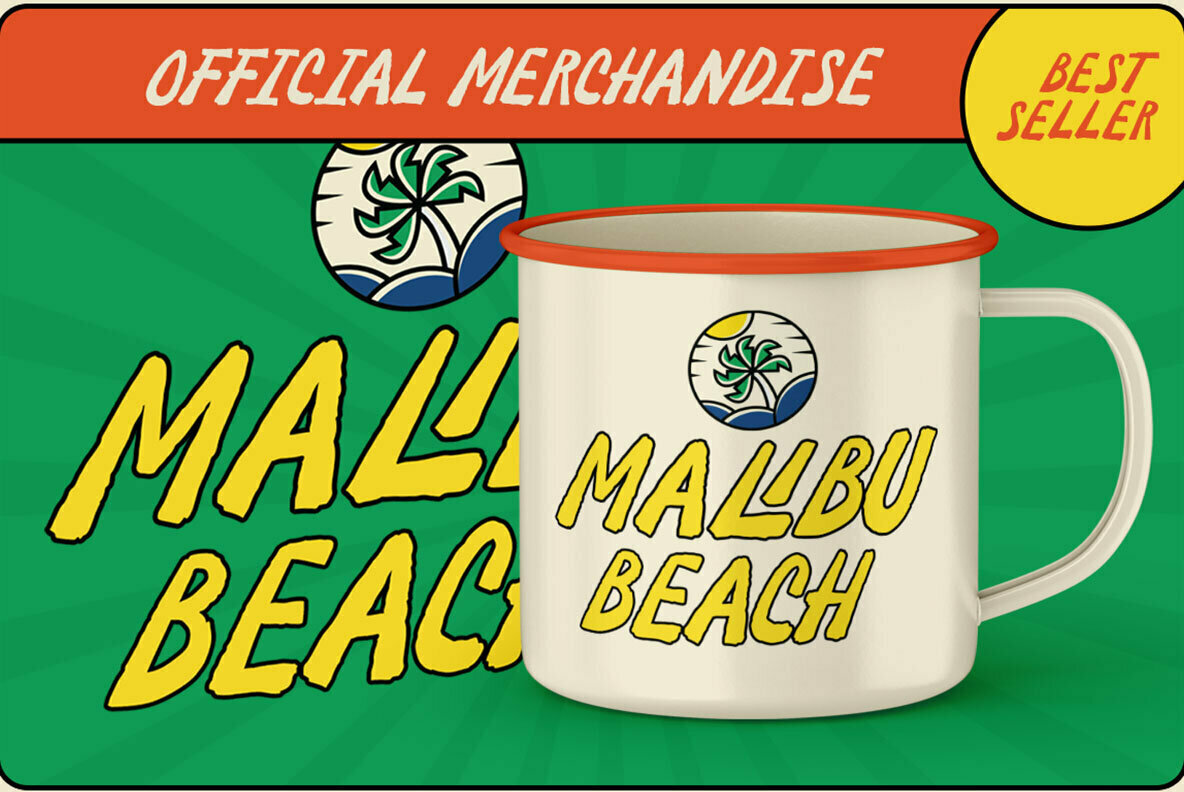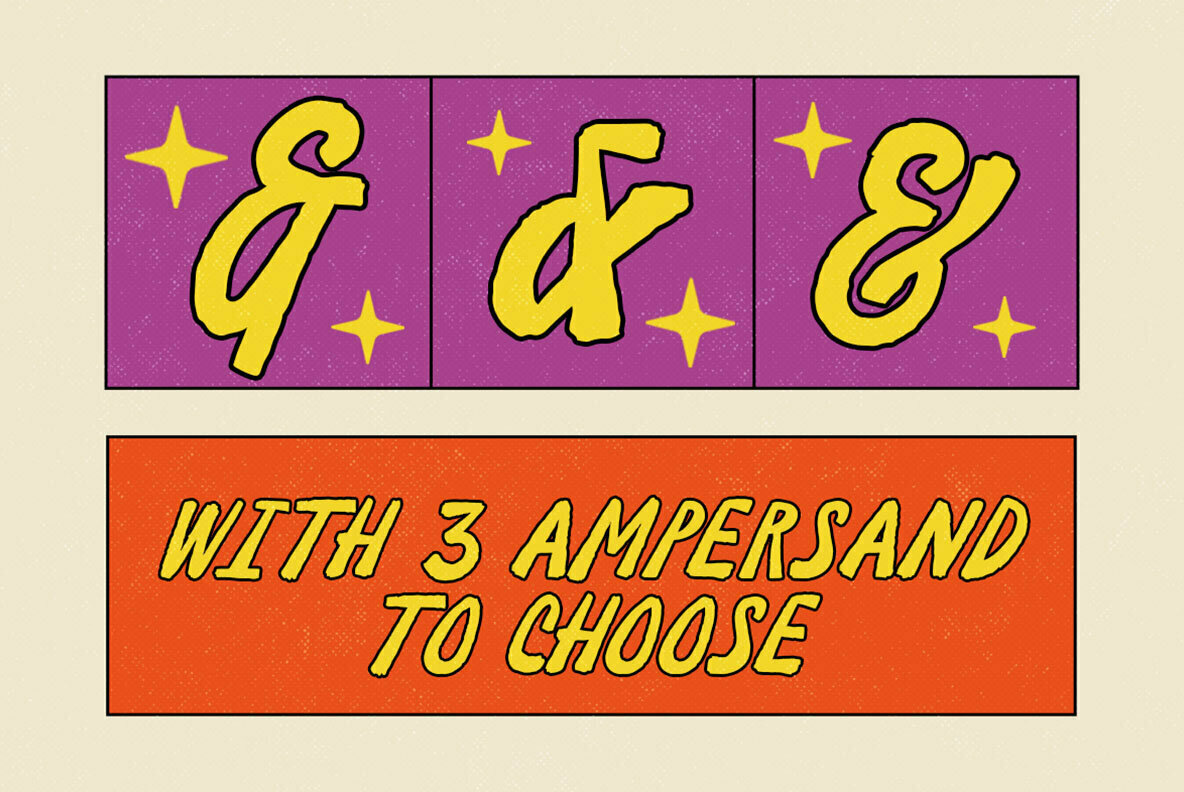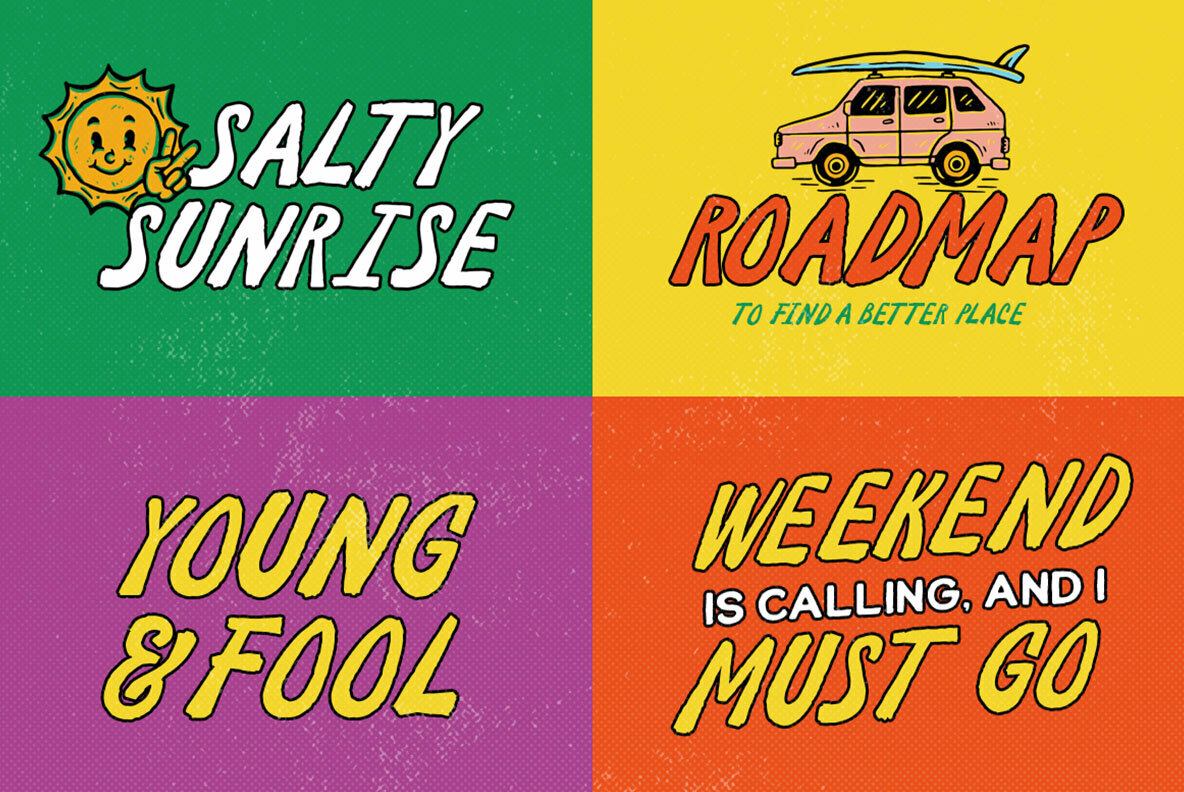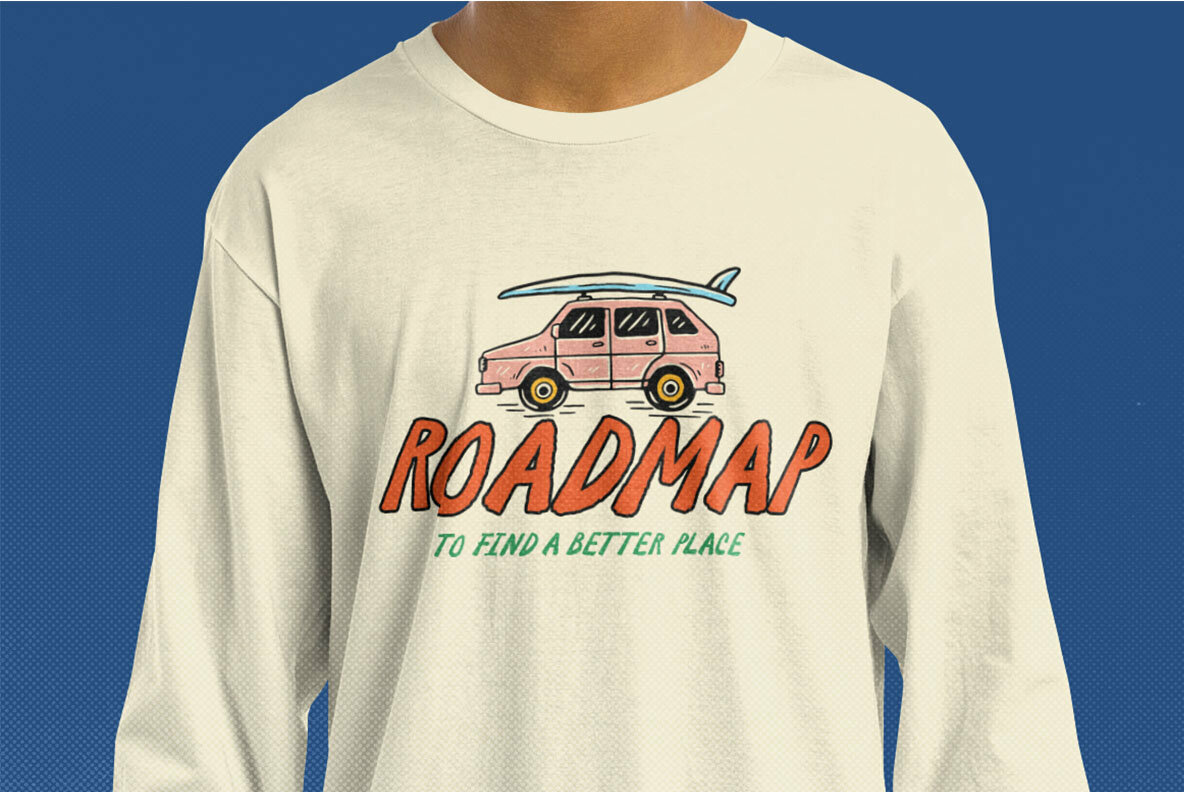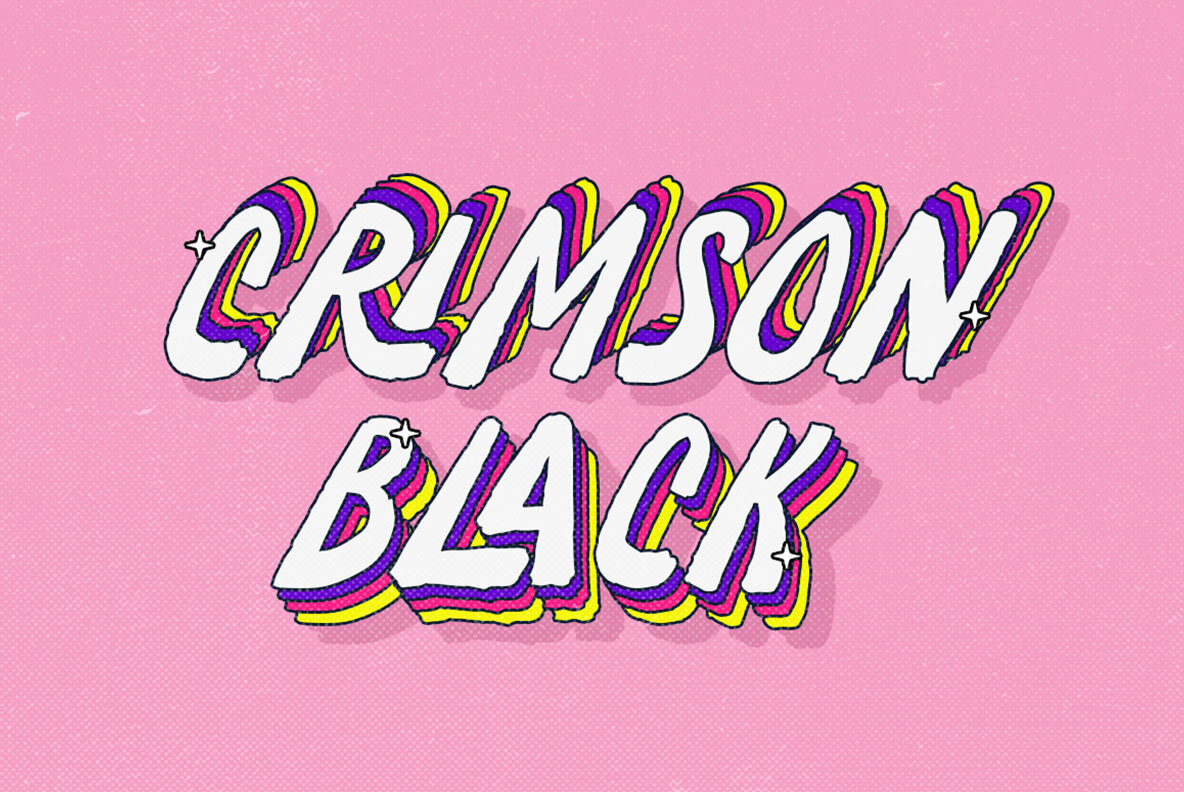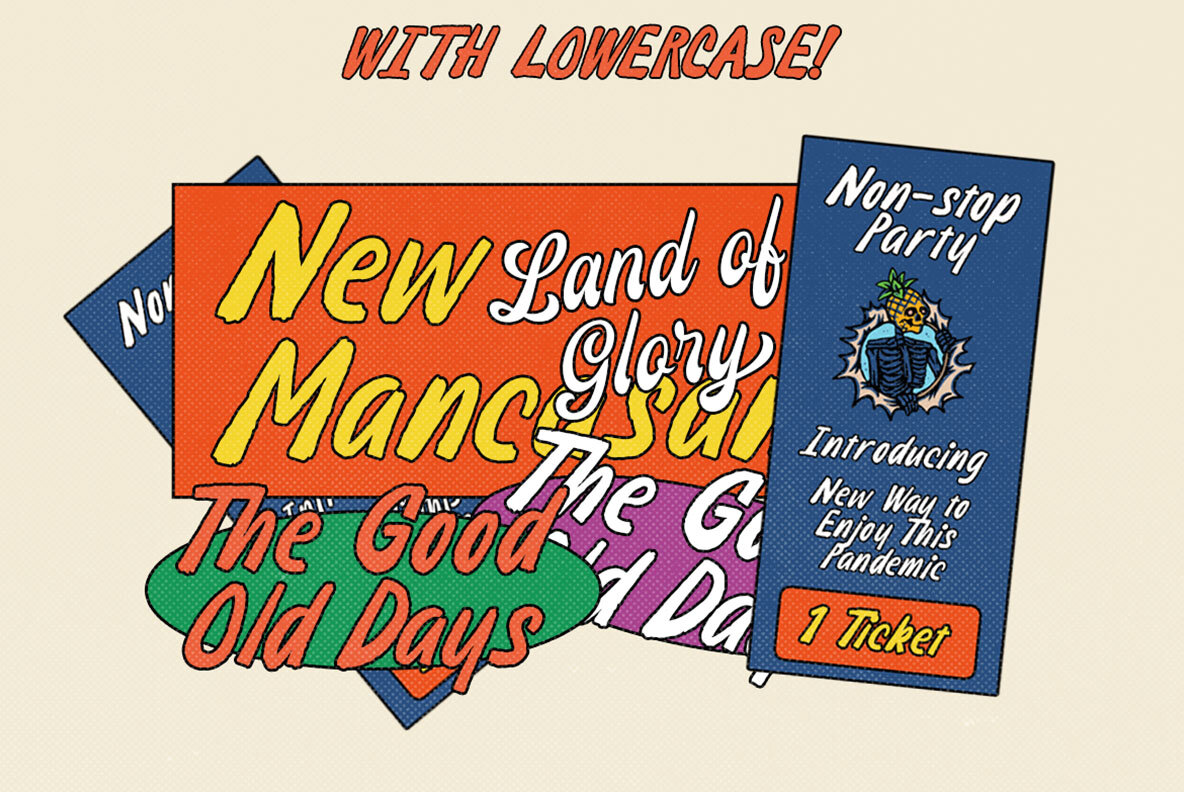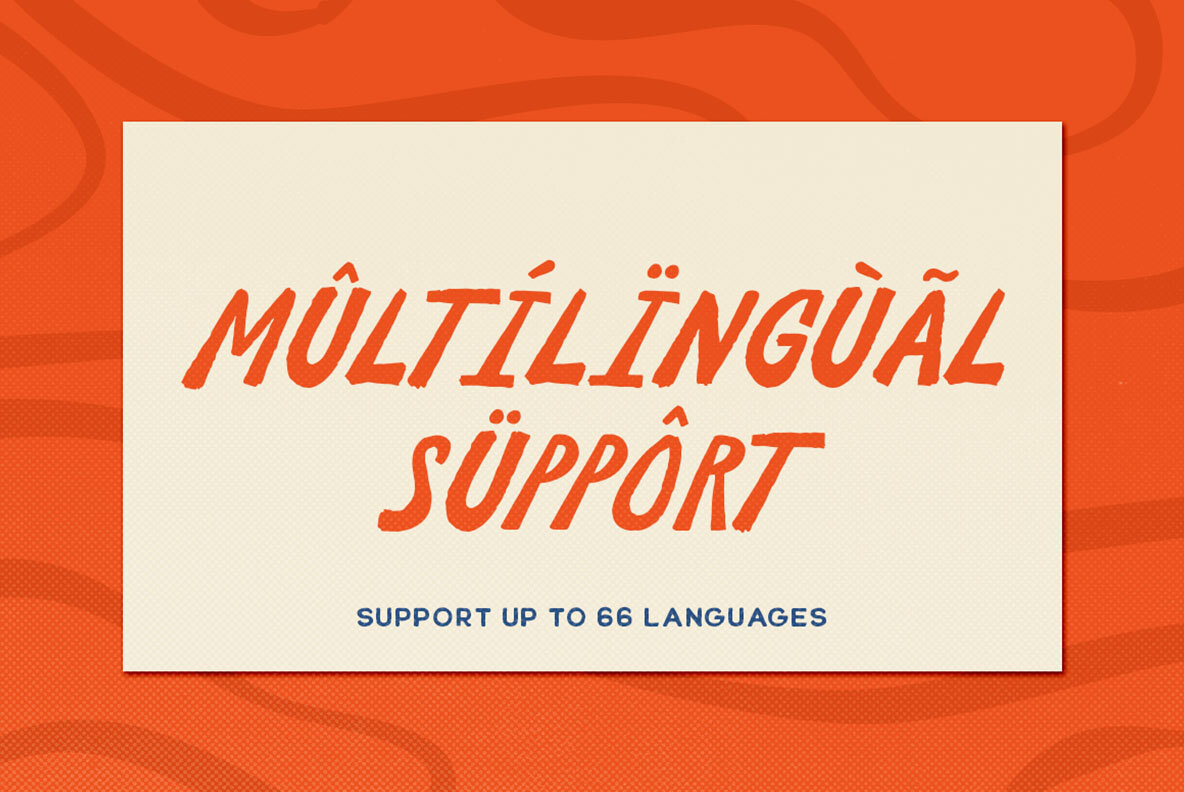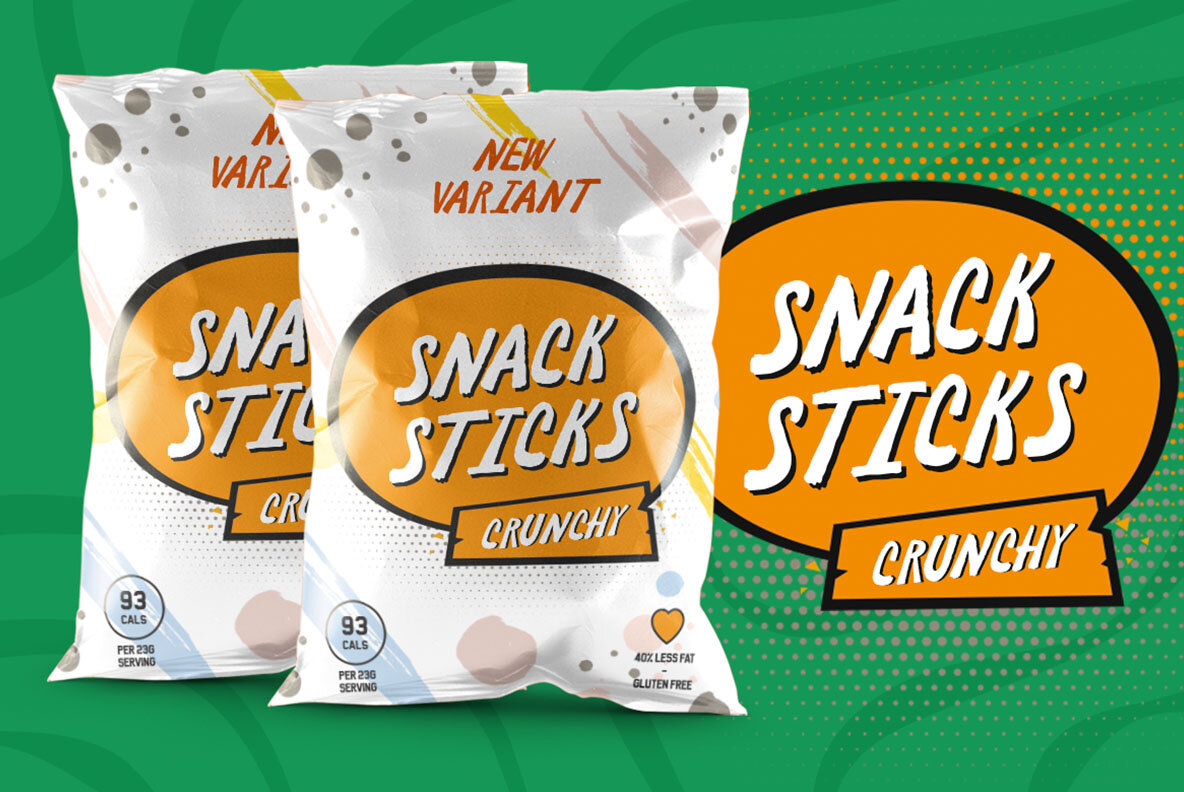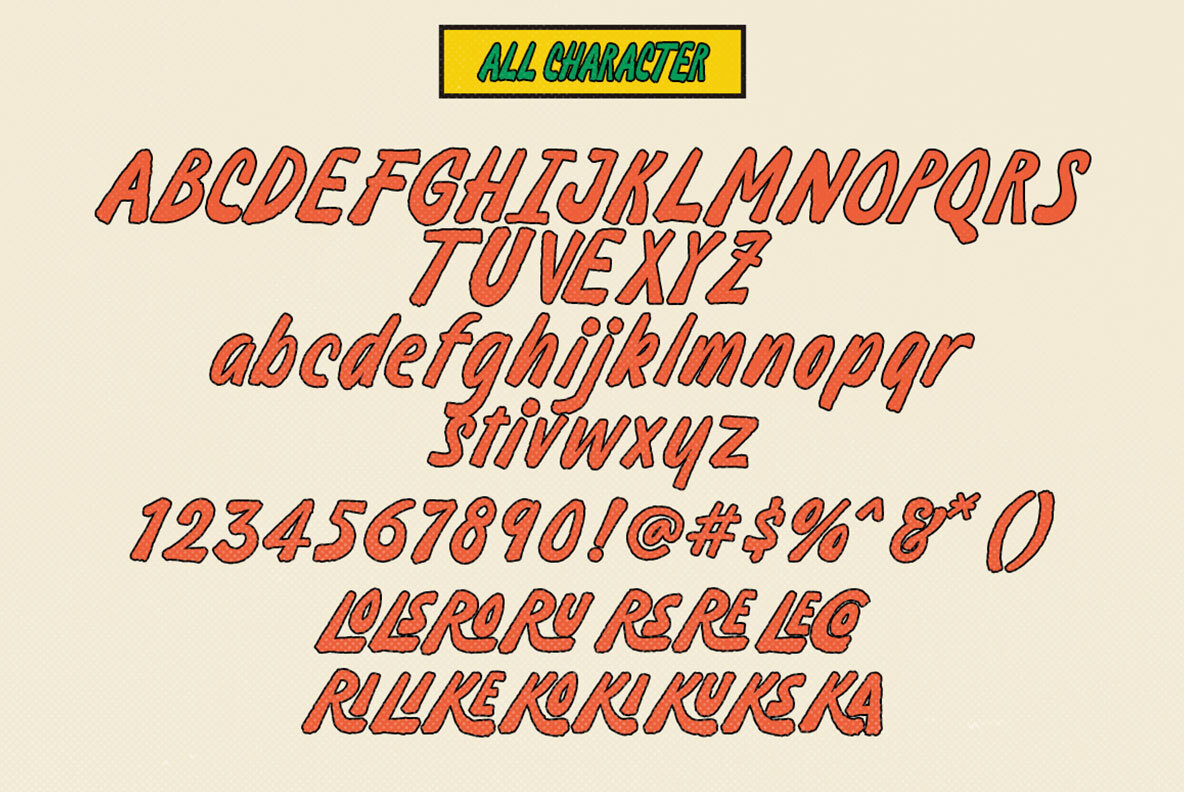
Lokacore Font
Lokacore Regular
Lokacore by Letterhend Studio infuses any project with whimsy and charm. This display font is designed with a playful aesthetic that stands out in children's storybooks, themed invitations, and more. It's particularly suitable for projects seeking a prominent visual impact, from labels and logos to magazines, wedding cards, and advertising. For the best experience, use a program that supports OpenType features and Glyphs panels like Adobe apps and Corel Draw, enabling seamless access to all these features.Lokacore: Playful Ligature Display Font